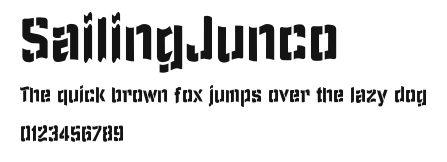
About SailingJunco.ttf
SailingJunco.ttf is a modern, elegant sans-serif font designed for ultimate readability and visual harmony. Perfect for branding, headlines, web design, and print materials.